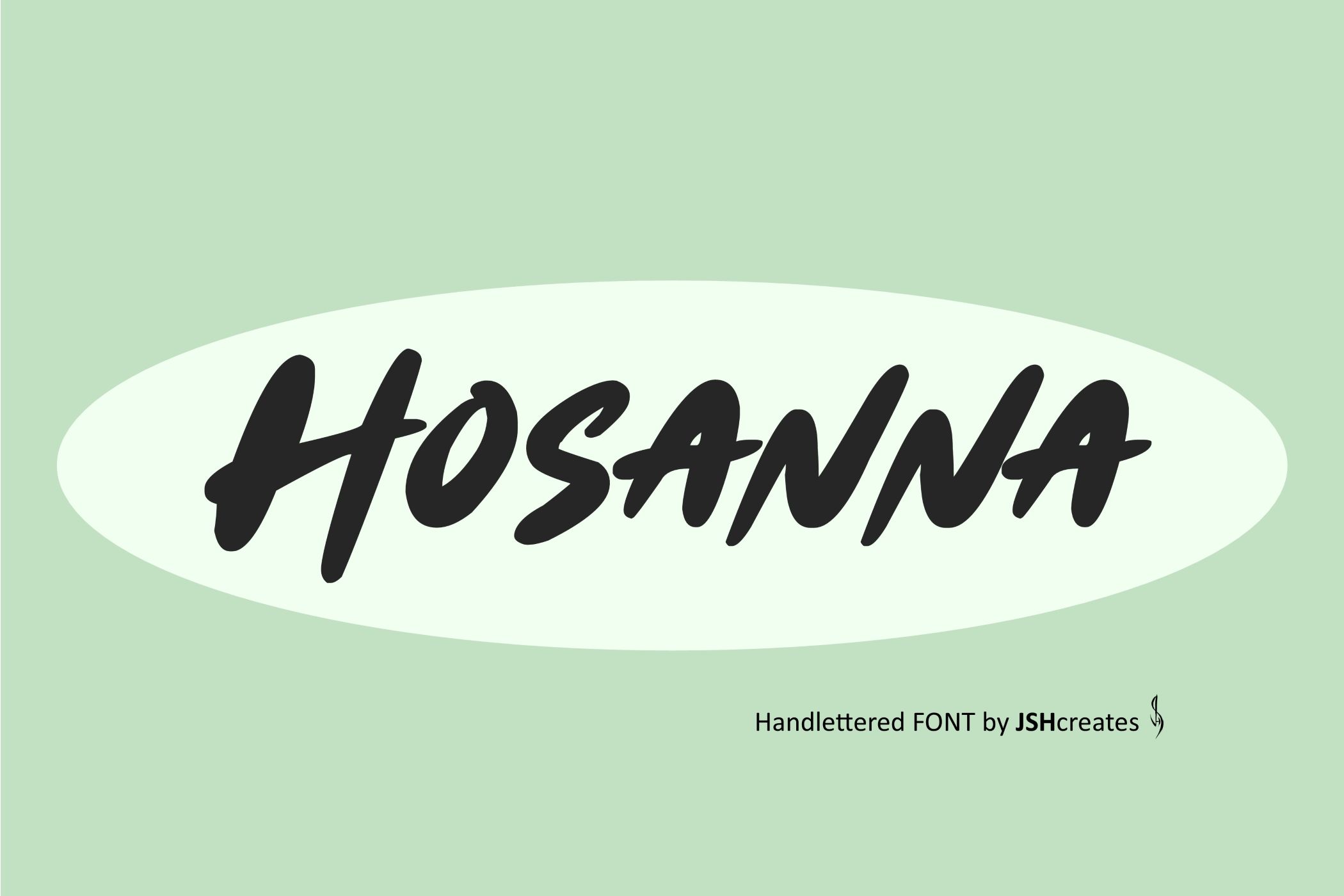
Hosanna Font
Handlettered font. “Hosanna”. Perfect for advertising and display purposes, including banners, book covers, shirts, posters, logos and much more!
This is an All Caps font.